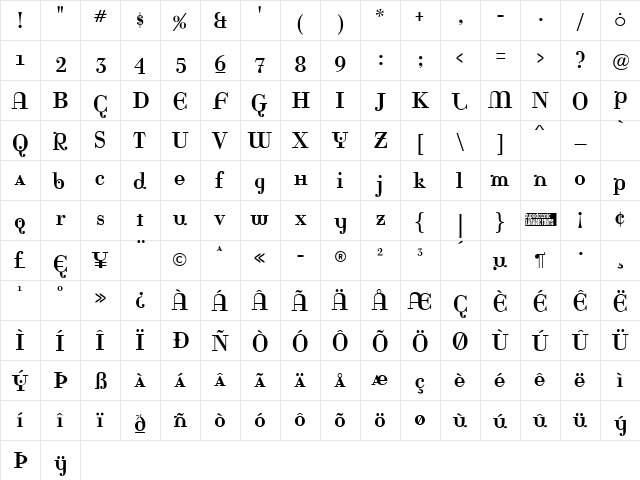
Rina Regular
Design Context for Rina Typeface
Rina offers clean, dependable letterforms without strong stylistic allegiance, making it a practical choice for designers who need flexibility.